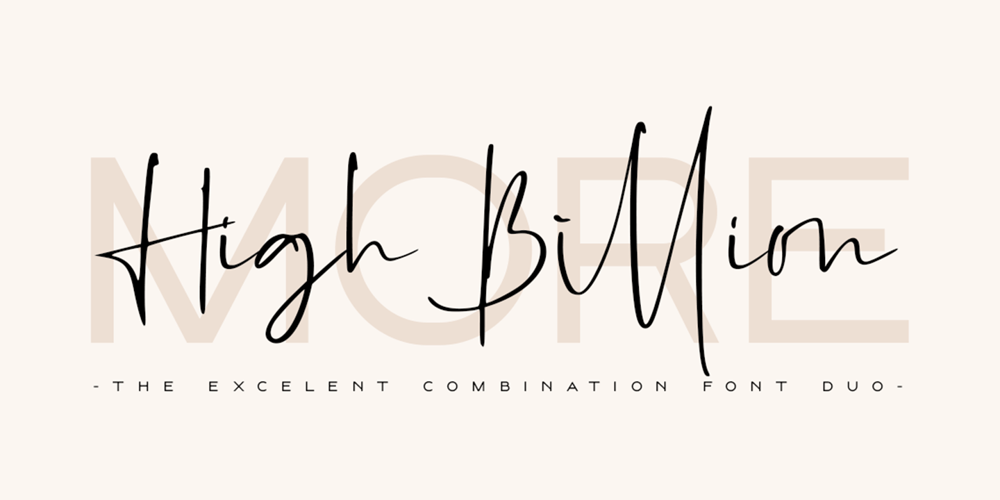
High Billion Font Family was designed by Sarwo Edhi Prayitno and published by Haksen. High Billion contains 4 styles and family package options. Introduce Excellent combination modern font duo in High Billion the stylish modern and natural fonts combination with casual chic flair. These are perfect for branding, wedding invites and cards, and more option for your requirement.High Billion include two font styles with full set of natural hand draw for script and elegant with all uppercase letters for sans serif. Numerals, a large range of punctuation and ligatures giving realistic hand-lettered style.In order to use the beautiful ligatures for script also all uppercase for sans serif, you need a program that supports OpenType features such as Adobe Illustrator CS, Adobe Photoshop CC, Adobe Indesign and Corel Draw.Thanks and have a great day :)Haksen